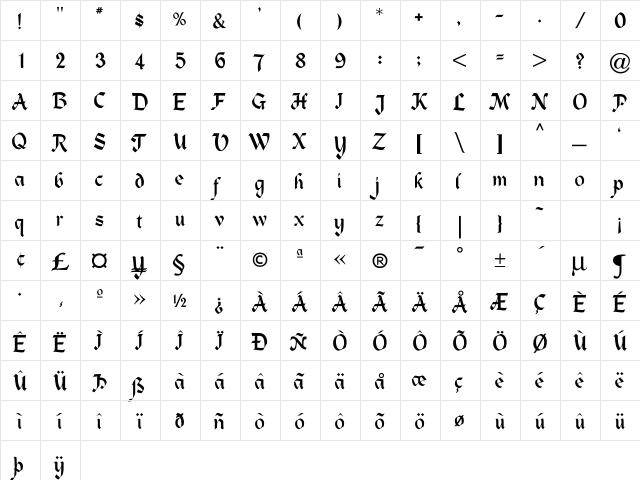
BD Springer Regular
Design Context for BD Springer Typeface
BD Springer is a composed and adaptable typeface that performs quietly and consistently across a wide range of design contexts. The heavy weight commands attention and anchors typographic hierarchies.
Pro Tip: Use BD Springer in both headline and body roles to test its range before committing to a single application.